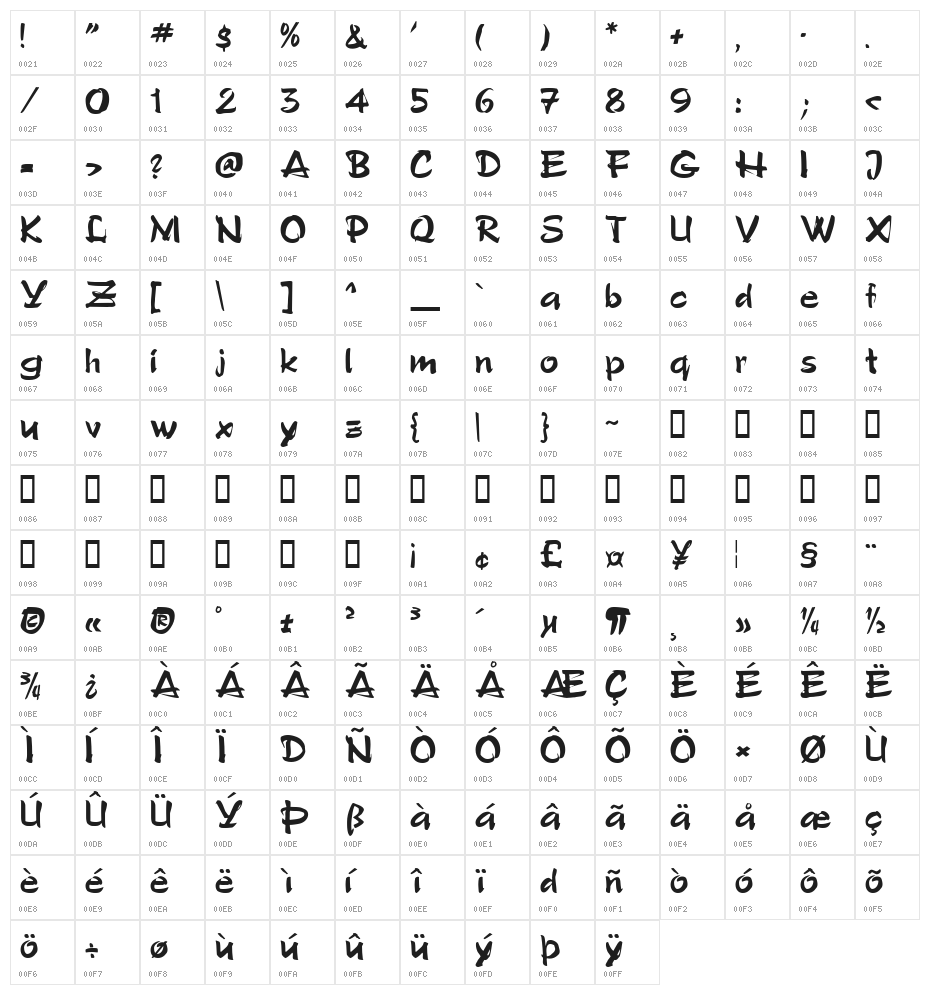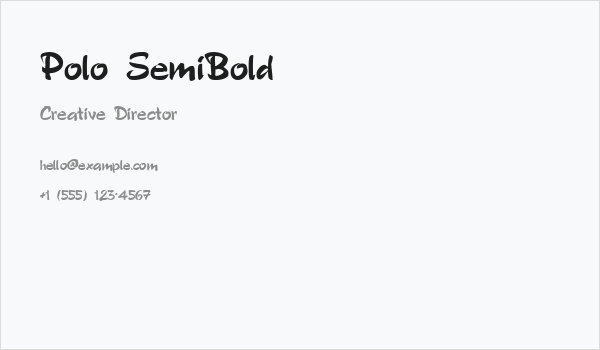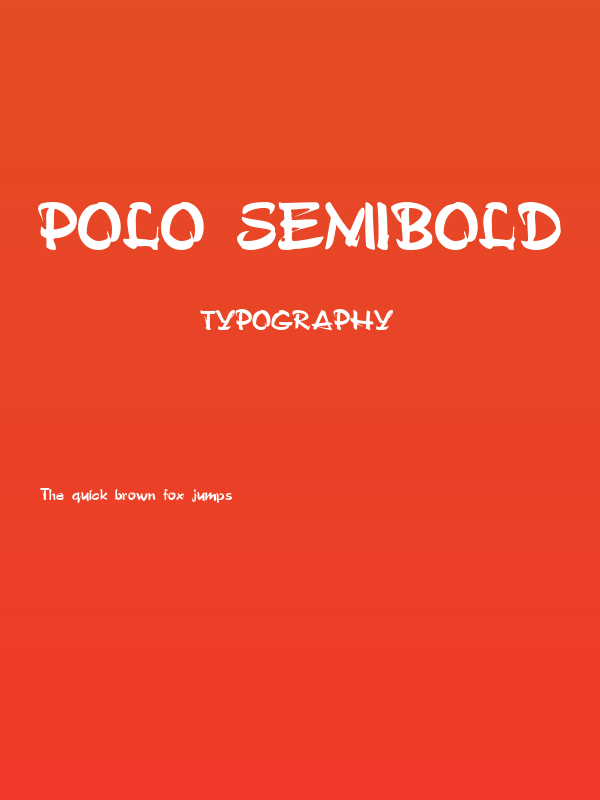
Polo SemiBold Font
Polo SemiBold Description
This font features a bold and dynamic style with a handwritten, brush-like appearance. The uppercase and lowercase letters exhibit a playful yet assertive character, with strokes that vary in thickness, adding a sense of movement and energy. The numbers and special characters maintain this lively aesthetic, making the font suitable for creative and informal applications. The overall design is expressive, with a slightly irregular form that enhances its handwritten feel.